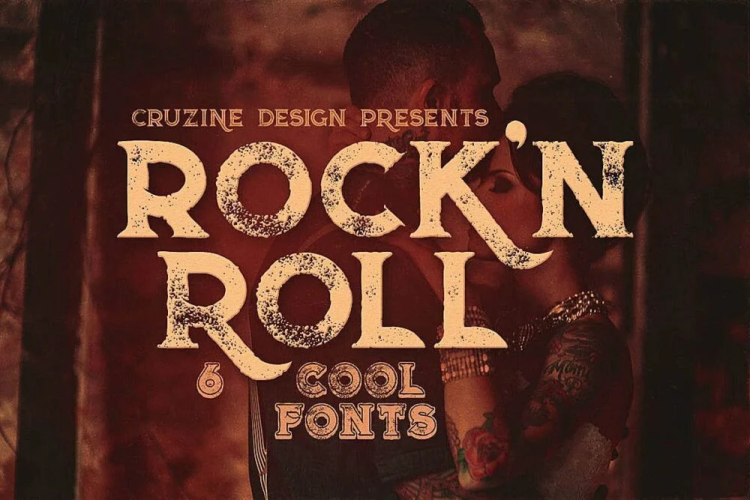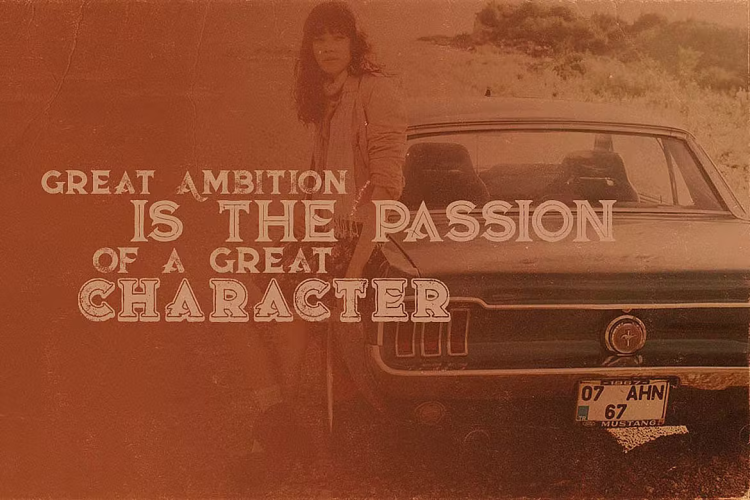
Rock’n Roll Font
Rock’n Roll Font is Creative & bold style display font for your new projects. Great for grunge/retro/vintage projects!
Where Rock’n Roll Font works best
Reports, white papers and book interiors hold the eye longer when the text face has real serifs; Rock’n Roll Font keeps that rhythm without looking old-fashioned.
Food, spirits and cosmetics brands lean on serif wordmarks to suggest age and care. Rock’n Roll Font gives that signal at wordmark size.
Set Rock’n Roll Font for the body of an award or a diploma and keep the recipient name in a script; the pairing is what makes a document feel official.
What kind of work does Rock’n Roll Font suit?
It sits in the Serif Fonts group and reads as bold, creative, display, retro. That makes it a candidate wherever those qualities help: headings, packaging, social graphics and brand work. Set it at the size you plan to use before deciding.